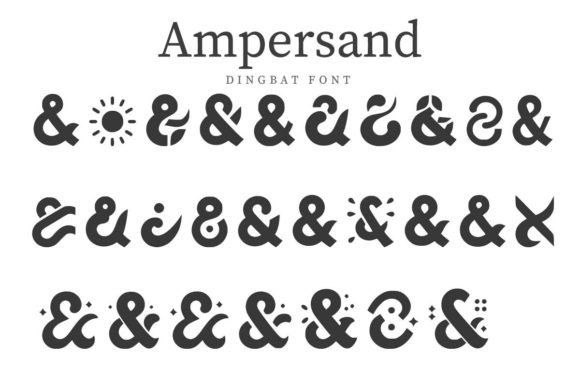
Ampersand Font: Elevate Your Designs with a Cool Dingbat Font
The ampersand font, a typographic symbol that represents the word “and,” has become an essential element in graphic design. With its unique and versatile style, it can add a touch of elegance and sophistication to various design projects. One such font that has gained popularity among designers is the Ampersand font, a cool dingbat font that contains glyph illustrations of ampersand. In this article, we’ll explore the world of Ampersand font and discover how it can be used to create stunning designs for crafts, stickers, decorations, journals, logos, planners, t-shirts, invitations, greeting cards, and other creative ideas.
What is Ampersand Font?
Ampersand font is a type of dingbat font that features glyph illustrations of ampersand (&) symbols. These fonts are designed to provide a unique and creative way to incorporate the ampersand symbol into various design projects. The Ampersand font, in particular, is a cool and stylish font that offers a range of glyph illustrations, each with its own distinct character and charm.
Key Features of Ampersand Font
- Unique Glyph Illustrations: The Ampersand font features a range of glyph illustrations, each with its own unique design and style.
- Crafting and Decorative: The font is perfect for crafting, decorating, and adding a personal touch to various design projects.
- Versatile: The Ampersand font can be used for a wide range of design projects, from logos and planners to t-shirts and greeting cards.
- Easily Customizable: The font can be easily customized to fit your design needs, making it perfect for designers and crafters alike.
Crafting and Design Ideas Using Ampersand Font
The Ampersand font is a versatile font that can be used for a wide range of design projects. Here are some ideas to get you started:
- Crafts: Use the Ampersand font to create custom crafts, such as handmade cards, gift tags, and decorations.
- Stickers: Create custom stickers with the Ampersand font to add a personal touch to your designs.
- Decorations: Use the font to create custom decorations, such as wall art, garlands, and banners.
- Journals: Add a touch of elegance to your journal with the Ampersand font.
- Logos: Use the font to create custom logos for your business or brand.
- Planners: Create custom planners with the Ampersand font to add a personal touch.
- T-Shirts: Use the font to create custom t-shirt designs.
- Invitations: Create custom invitations with the Ampersand font for special occasions.
- Greeting Cards: Use the font to create custom greeting cards for birthdays, holidays, and other special occasions.
Tips and Tricks for Using Ampersand Font
Here are some tips and tricks for using the Ampersand font:
- Experiment with Different Sizes: Experiment with different font sizes to create a unique and eye-catching design.
- Mix and Match: Mix and match different glyph illustrations to create a unique and personalized design.
- Add Colors: Add colors to your design to make it more vibrant and eye-catching.
- Use as a Accent: Use the Ampersand font as an accent font to add a touch of elegance to your design.
Benefits of Using Ampersand Font
Here are some benefits of using the Ampersand font:
- Unique Designs: The Ampersand font allows you to create unique and personalized designs that stand out from the crowd.
- Time-Saving: The font saves you time and effort by providing a range of pre-designed glyph illustrations.
- Easily Customizable: The font is easily customizable, making it perfect for designers and crafters alike.
- Cost-Effective: The Ampersand font is a cost-effective solution for designers and crafters who want to create high-quality designs without breaking the bank.
In conclusion, the Ampersand font is a cool and stylish dingbat font that contains glyph illustrations of ampersand. With its unique and versatile style, it can add a touch of elegance and sophistication to various design projects. Whether you’re a designer, crafter, or DIY enthusiast, the Ampersand font is a must-have font that can help you create stunning designs for crafts, stickers, decorations, journals, logos, planners, t-shirts, invitations, greeting cards, and other creative ideas.